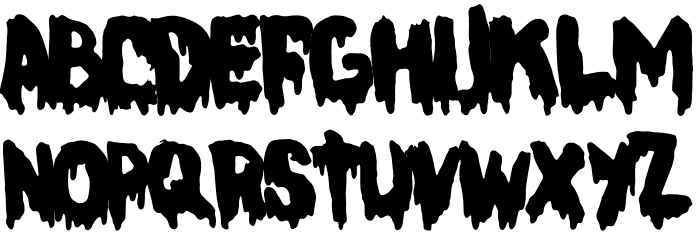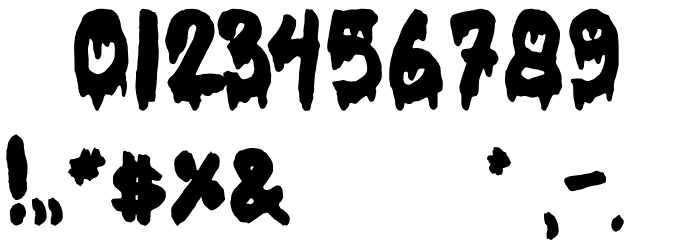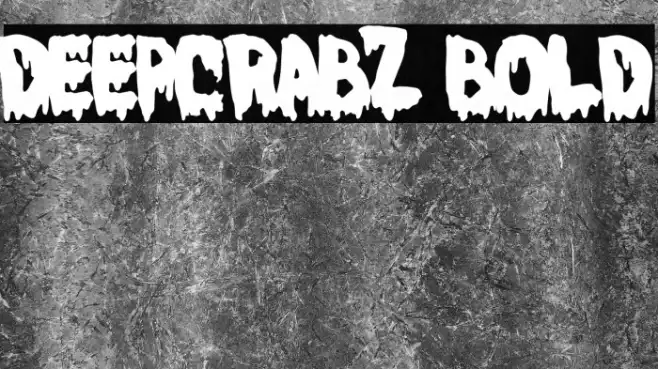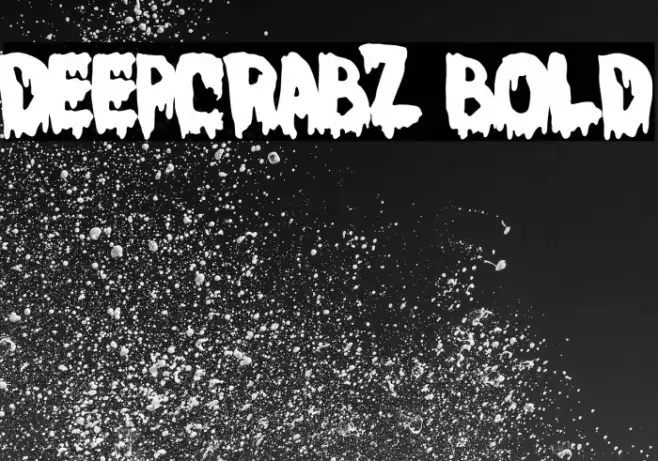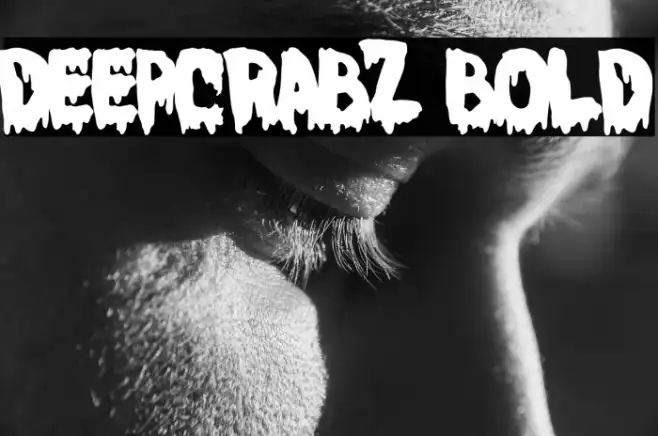
DeepCrabz Bold Font
This font exhibits a bold and dramatic style with a dripping, liquid-like appearance. The characters are heavily stylized, giving the impression of melting or being formed from a viscous substance. The uppercase and lowercase letters maintain a consistent thickness, contributing to a cohesive look. Numbers and special characters follow the same design principles, ensuring uniformity across all glyphs. This font's unique aesthetic makes it stand out, ideal for projects requiring a strong visual impact.
A bold, dripping font with a liquid-like, dramatic style.
- Proposed Projects: Ideal for horror-themed designs, Halloween posters, edgy branding, or any project needing a bold, eye-catching typeface.